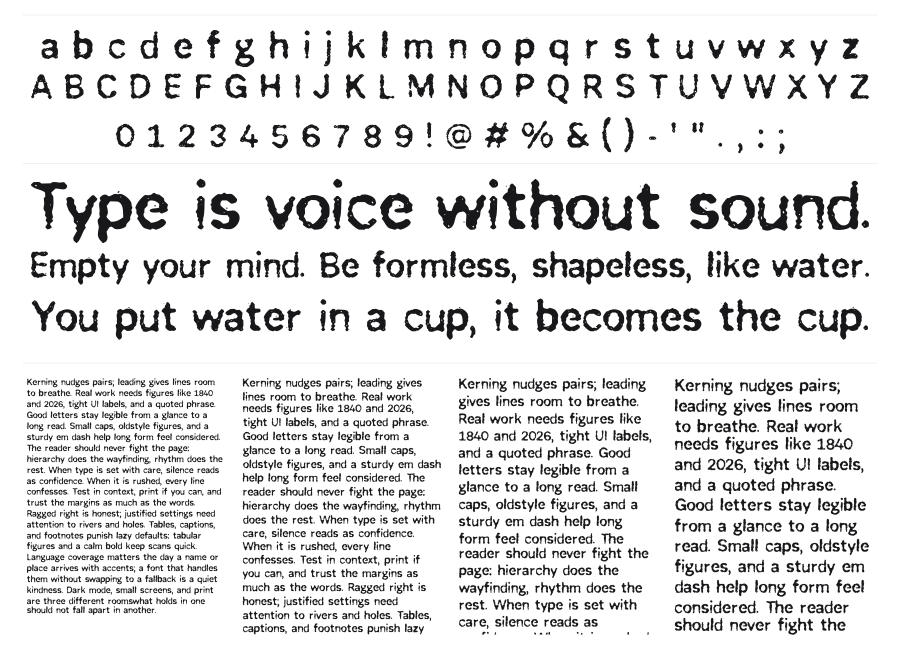
FaggottPin Strada
FaggottPin Strada is a bold rounded sans-serif submerged in heavy ink distortion, with drips, bleeds, and eroded edges eating into every stroke. The underlying structure is simple and legible, but the relentless surface texture pushes it firmly into horror and grunge territory. It works at large sizes where the splattered detail reads clearly.